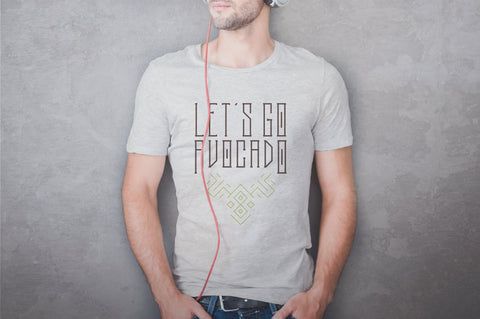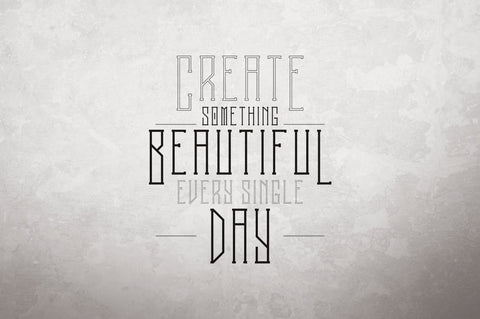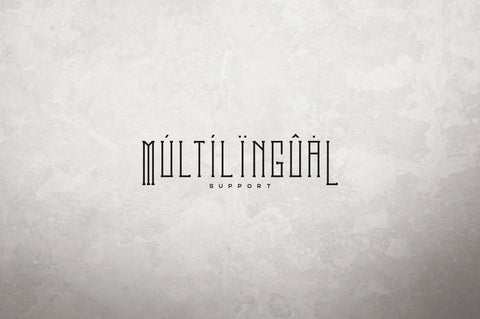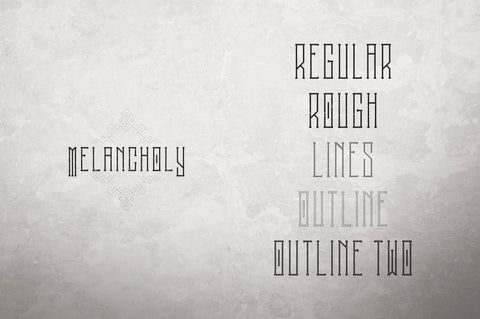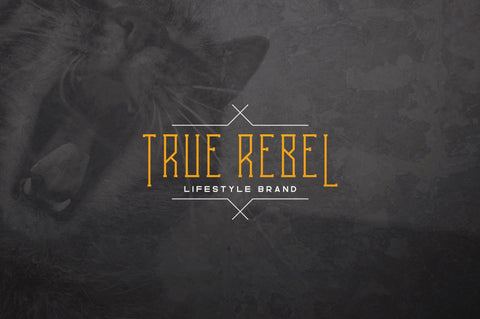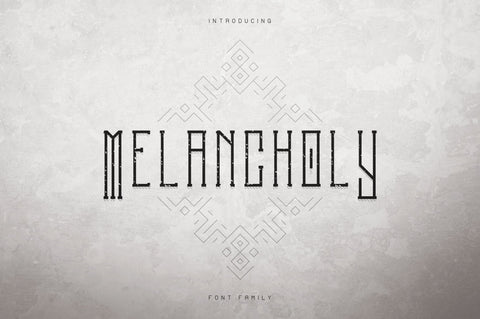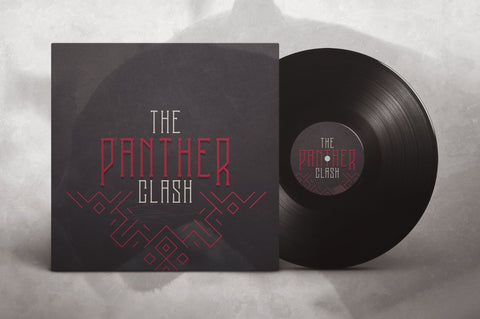
Melancholy Display Typeface + Extra
Melancholy Rough Display Typeface
Melancholy is long, gothic typeface with 5 fonts, vector elements and multilingual support. It's a very versatile font that works great in large and small sizes.
Melancholy is perfect for branding projects, home-ware designs, product packaging, magazine headers - or simply as a stylish text overlay to any background image.
- Uppercase,lowercase,numeral,punctuation & Symbol
- Multilingual
- Regular
- Outline
- Outline Two
- Rough
- Lines
- Vector elements